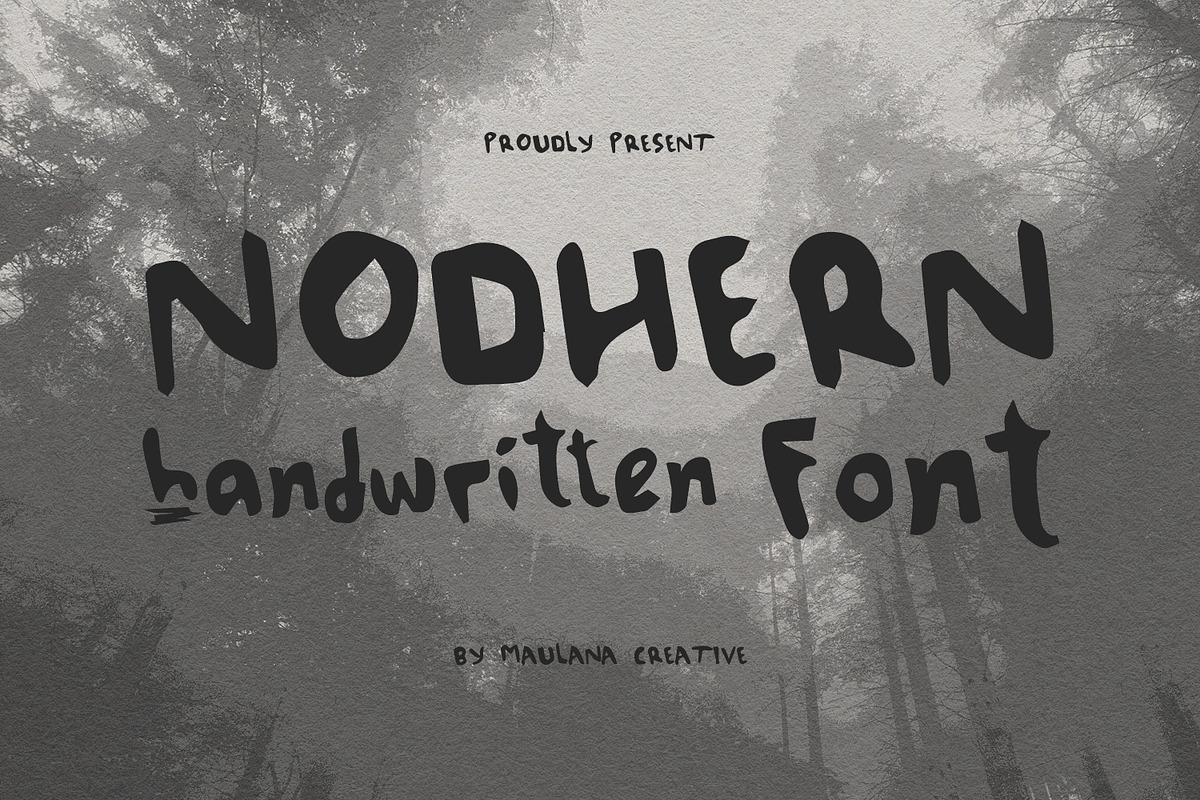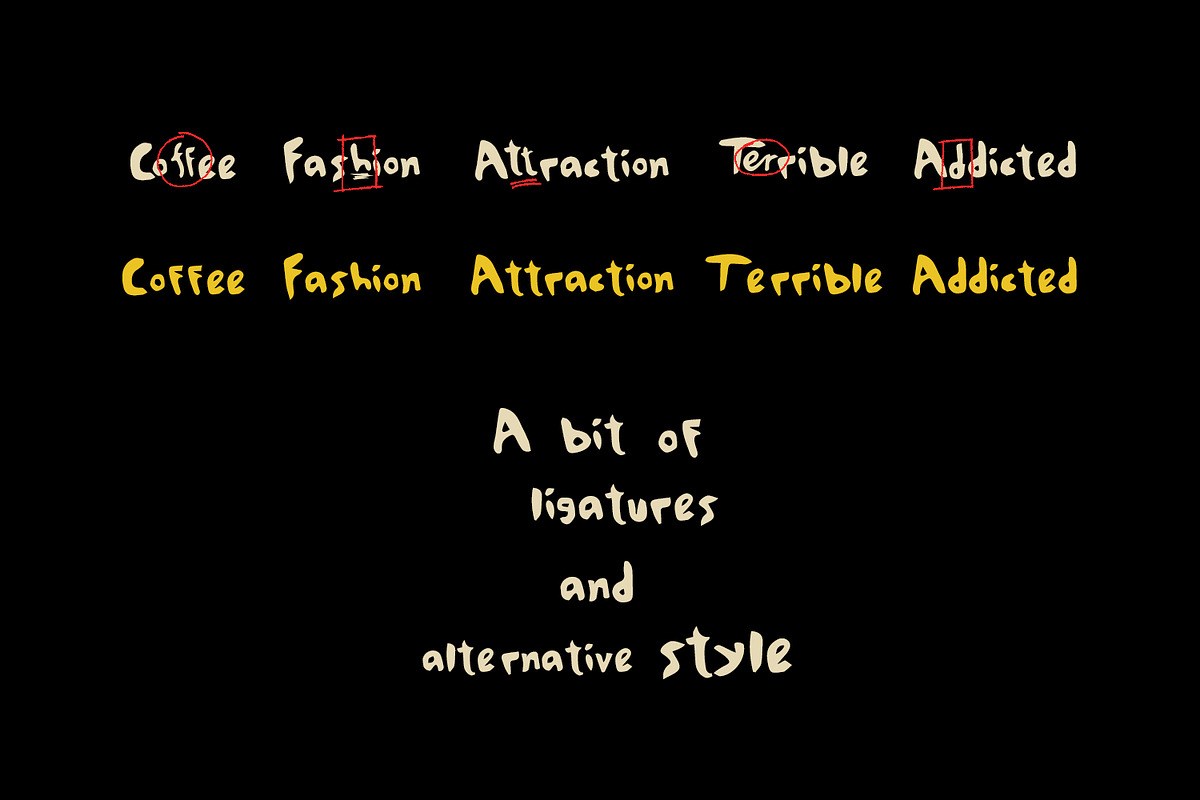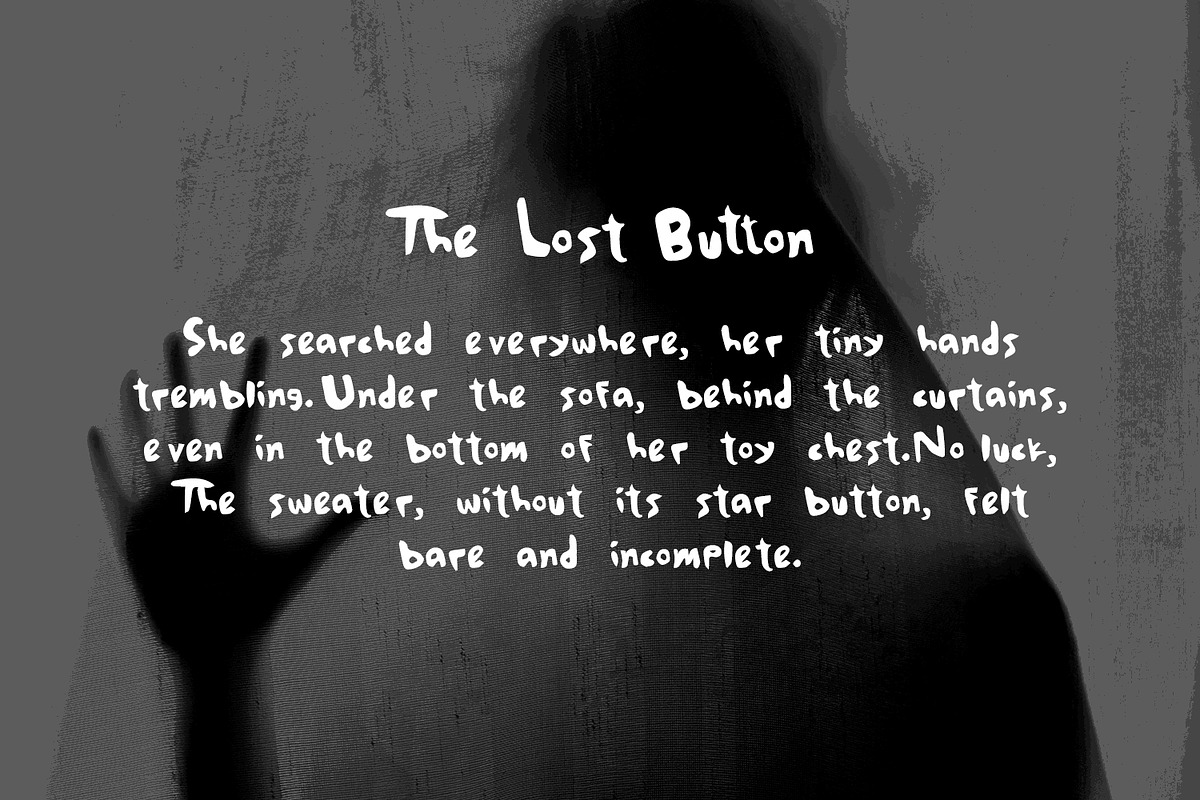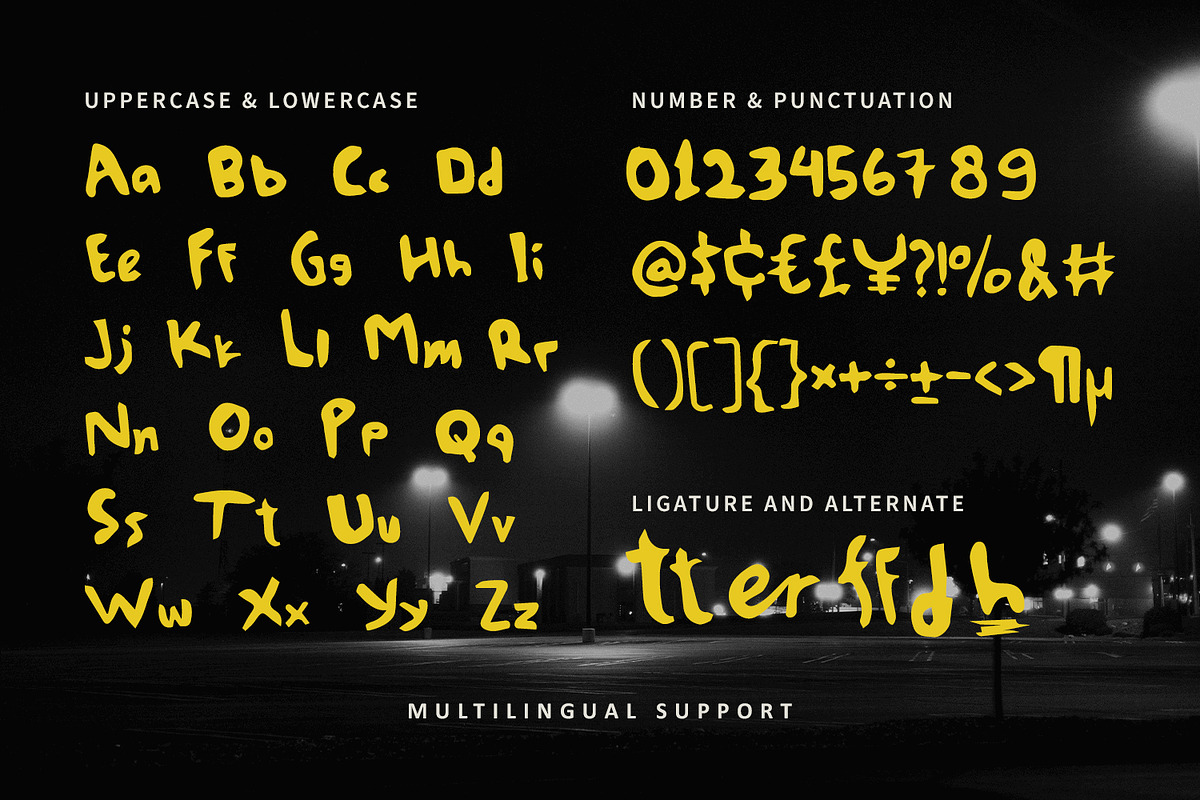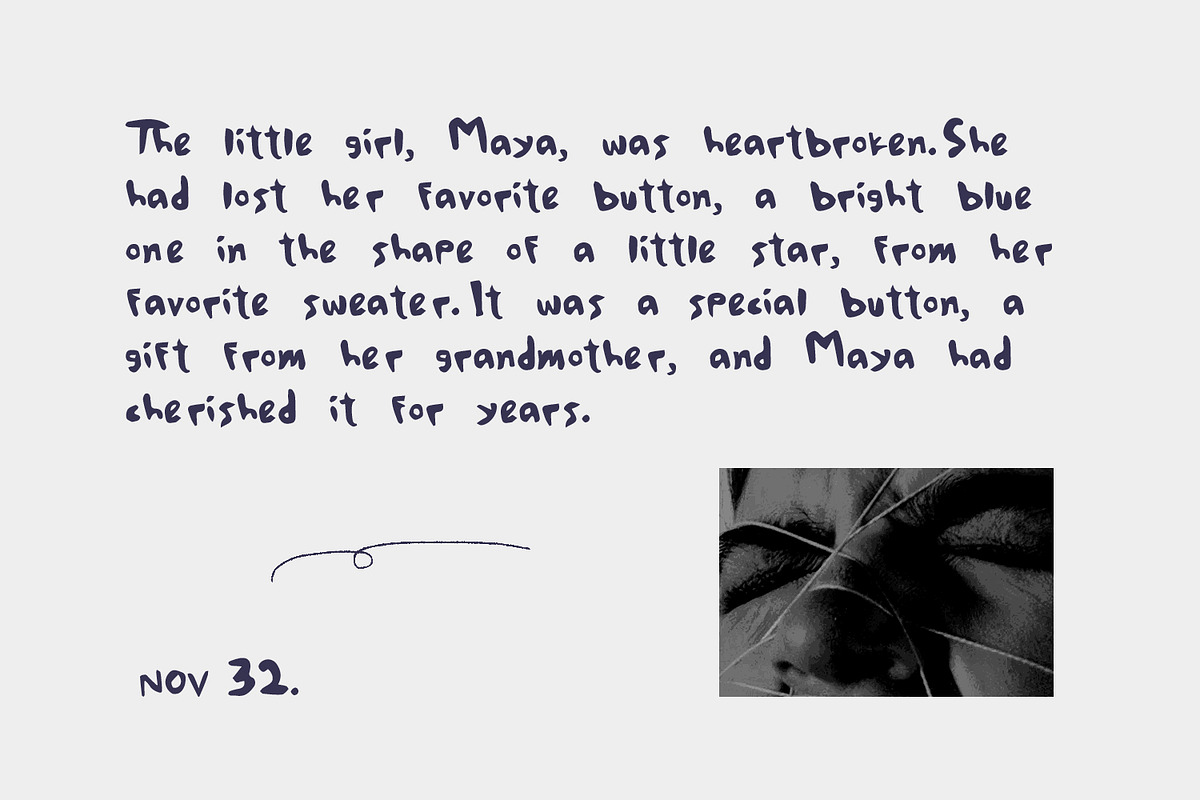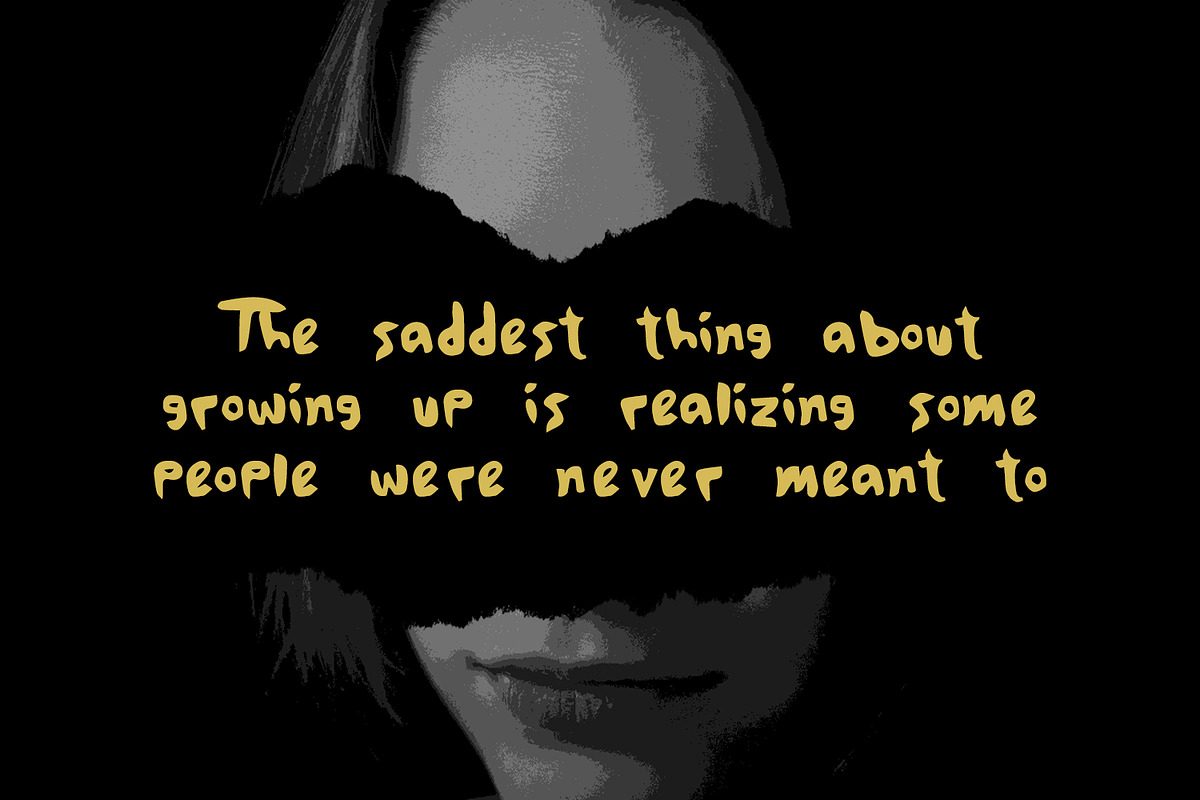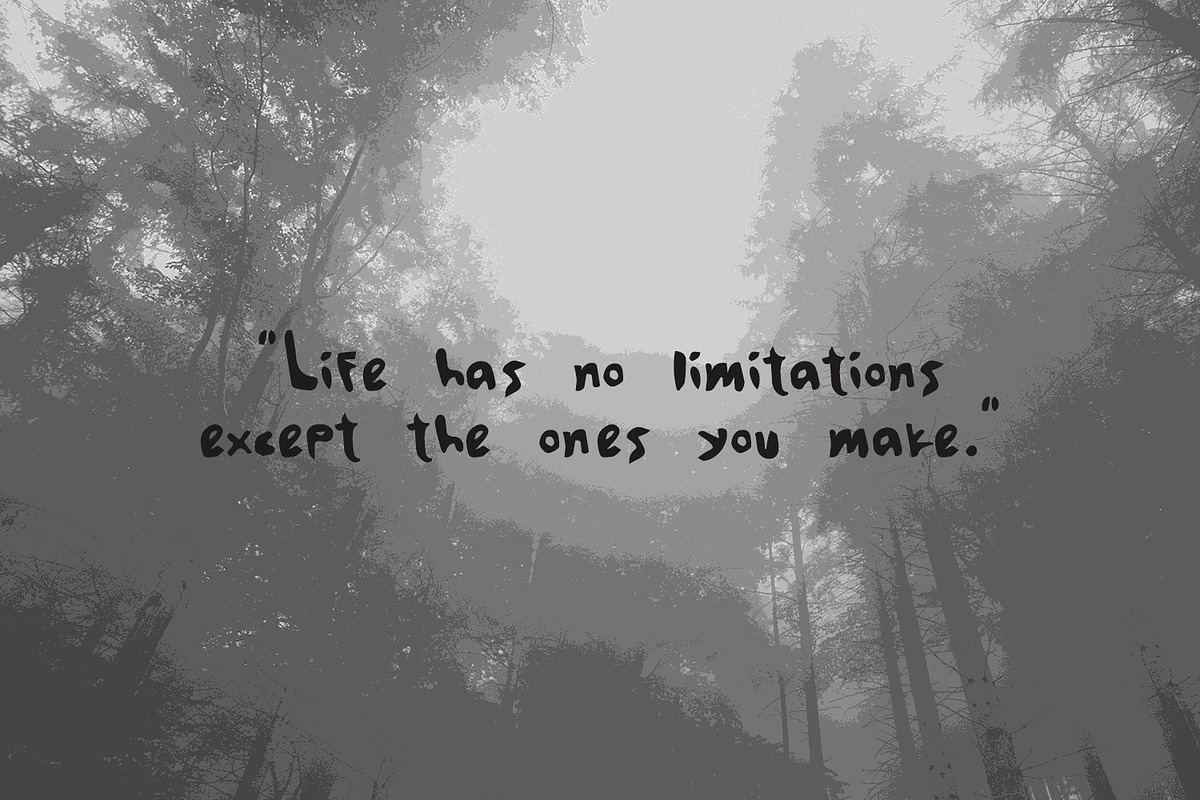
Nodhern Handwritten Font
Nodhern handwritten handmade font. Fun character with a bit of ligatures and alternates. To give you an extra creative work. This font is good for logo design, Social media, Movie Titles, Books Titles, a short text even a long text letter and good for your secondary text font with script or serif. Make a stunning work with Nodhern font.